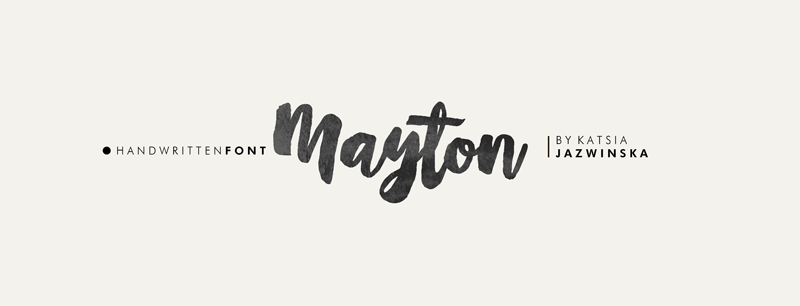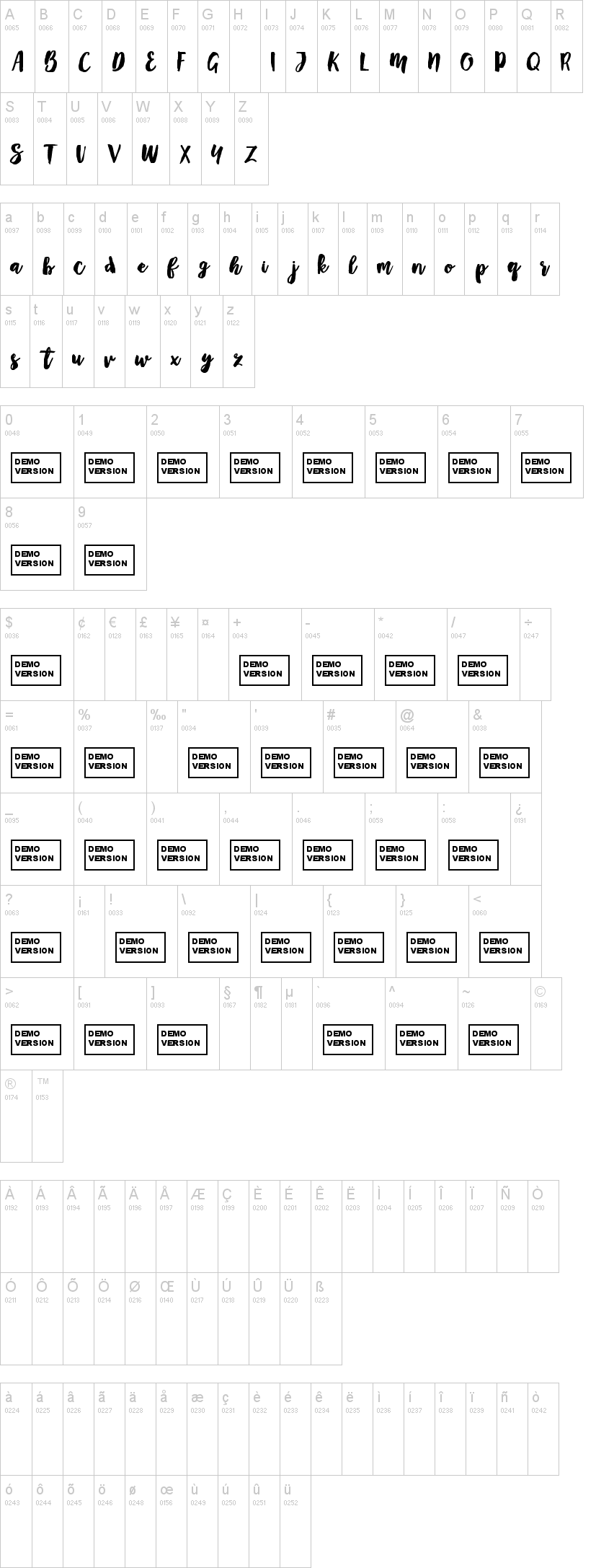
Note of the authorIntroducing Mayton, a hand-made brush font with gritty, imperfect, hand-painted characters and an irregular baseline, which comes with upper and lowercase standard characters, punctuation, numerals and special glyphs, so the font can be used with most of the European languages.